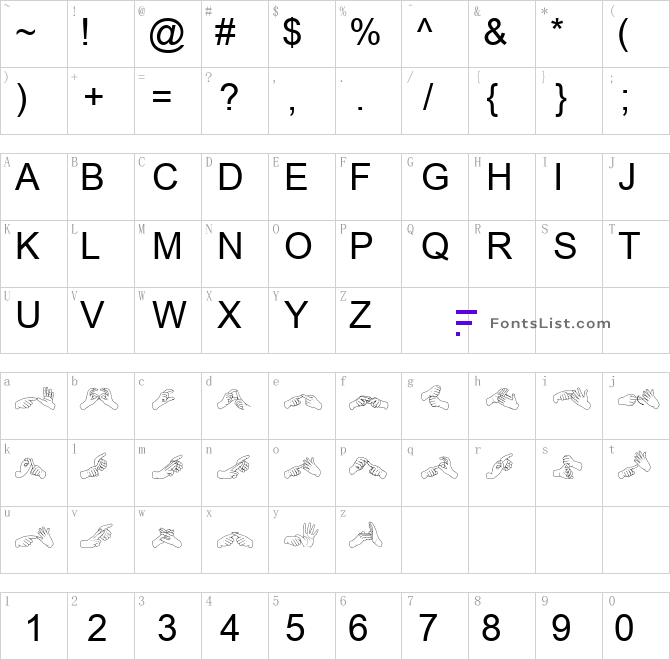
AdmanGraphics-Auslan.ttf is a very beautiful artistic font, AdmanGraphics-Auslan.ttf is widely used in the design and printing of various books and pictures,AdmanGraphics-Auslan.ttf has a strong visual impact,AdmanGraphics-Auslan.ttf is a commonly used font in newspapers, magazines and books, and is used in posters, e-commerce Poster design, store design, logo design, font design and other fields.AdmanGraphics-Auslan.